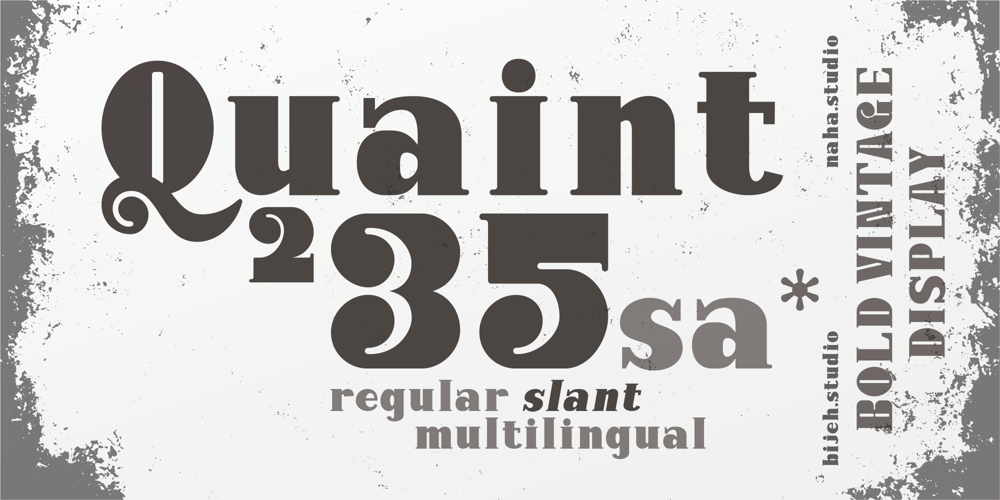
Quaint 235
Quaint 235 font
Quaint 235 Font Family was designed by Bejeletter and published by Bejeletter. Quaint 235 contains 2 styles and family package options. Quaint 235 is a regular and slant font with a modern concept with a bold typeface, good for products and very suitable for use as a display font and also as a header.